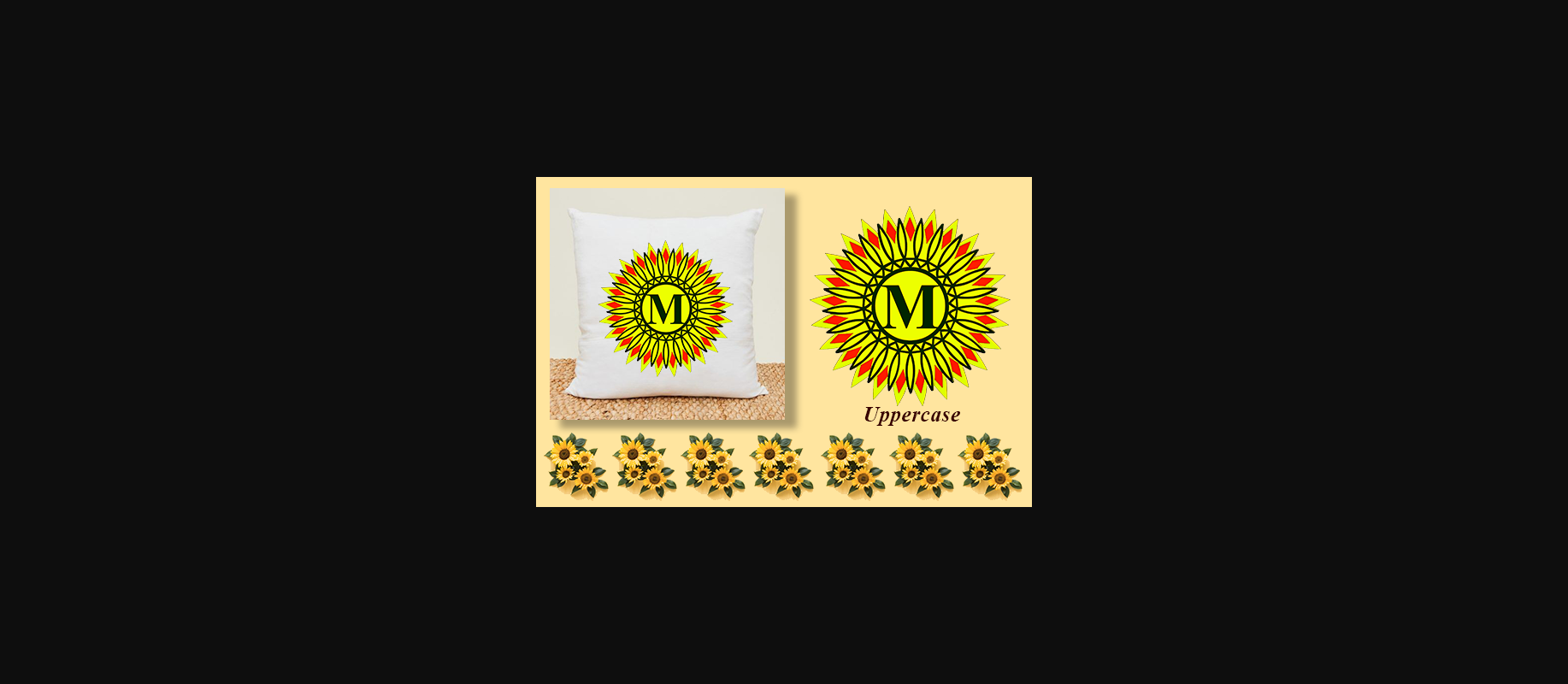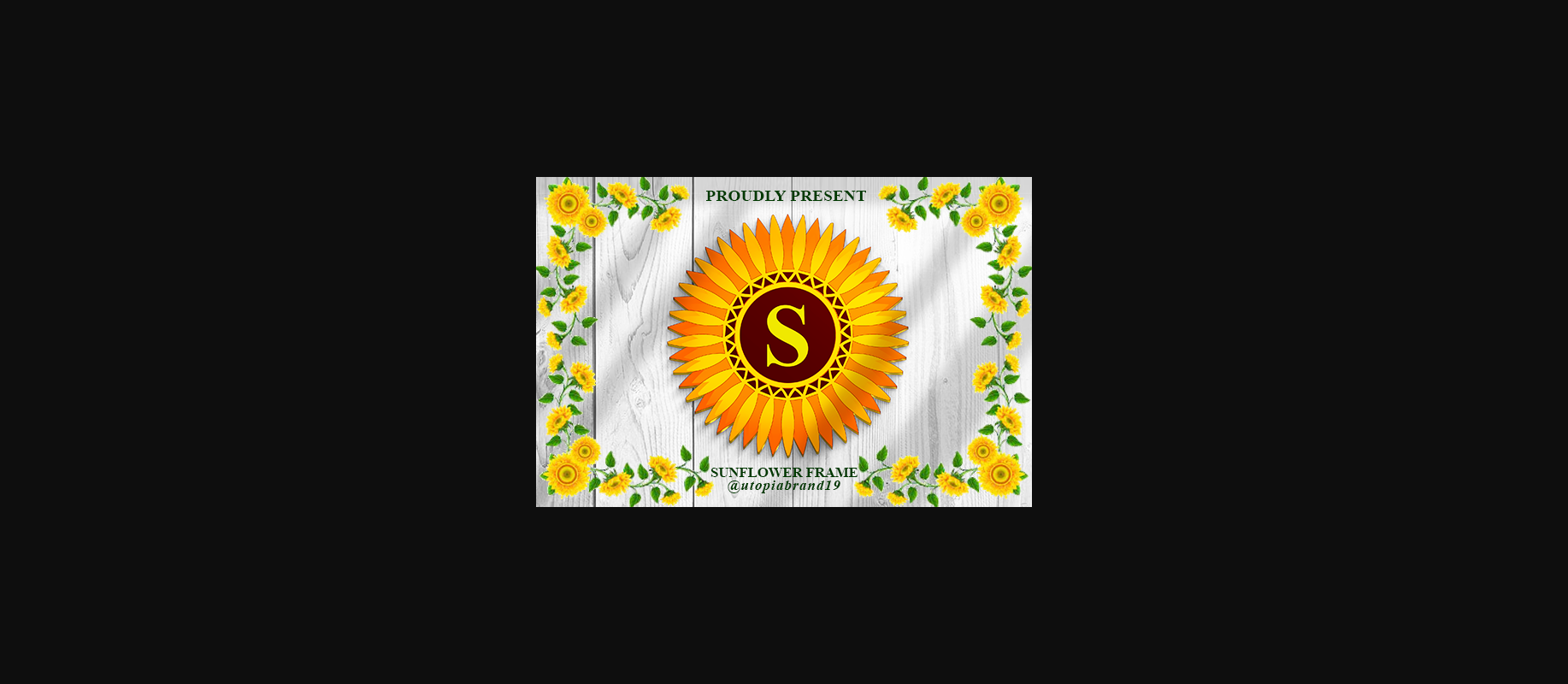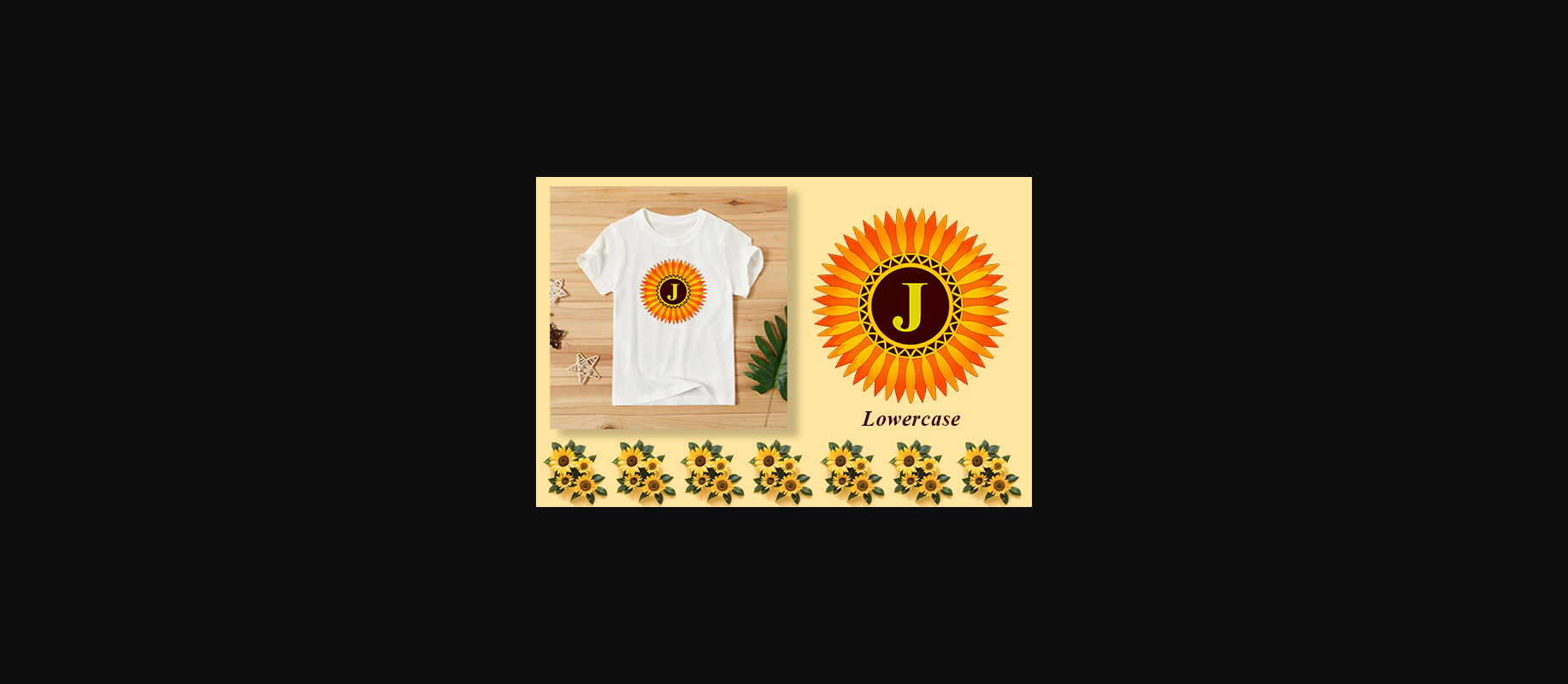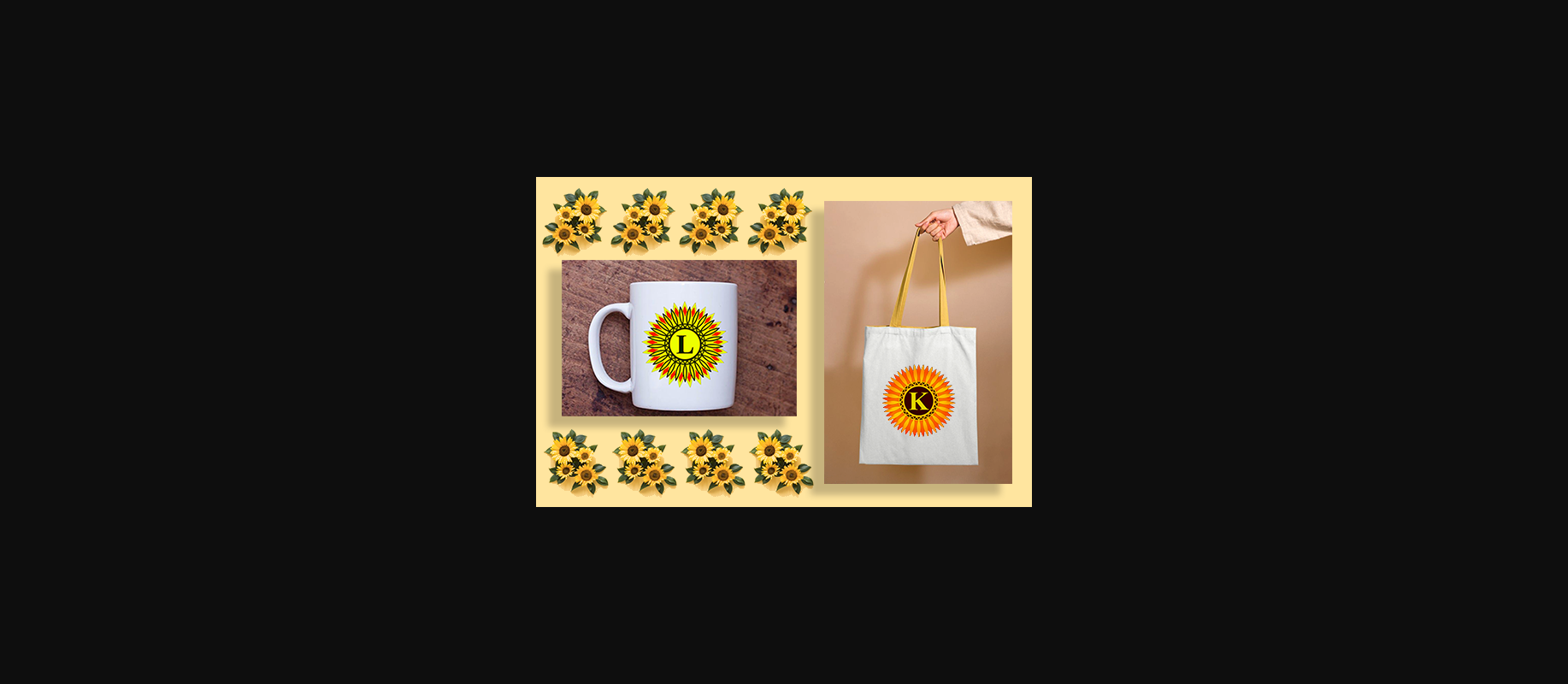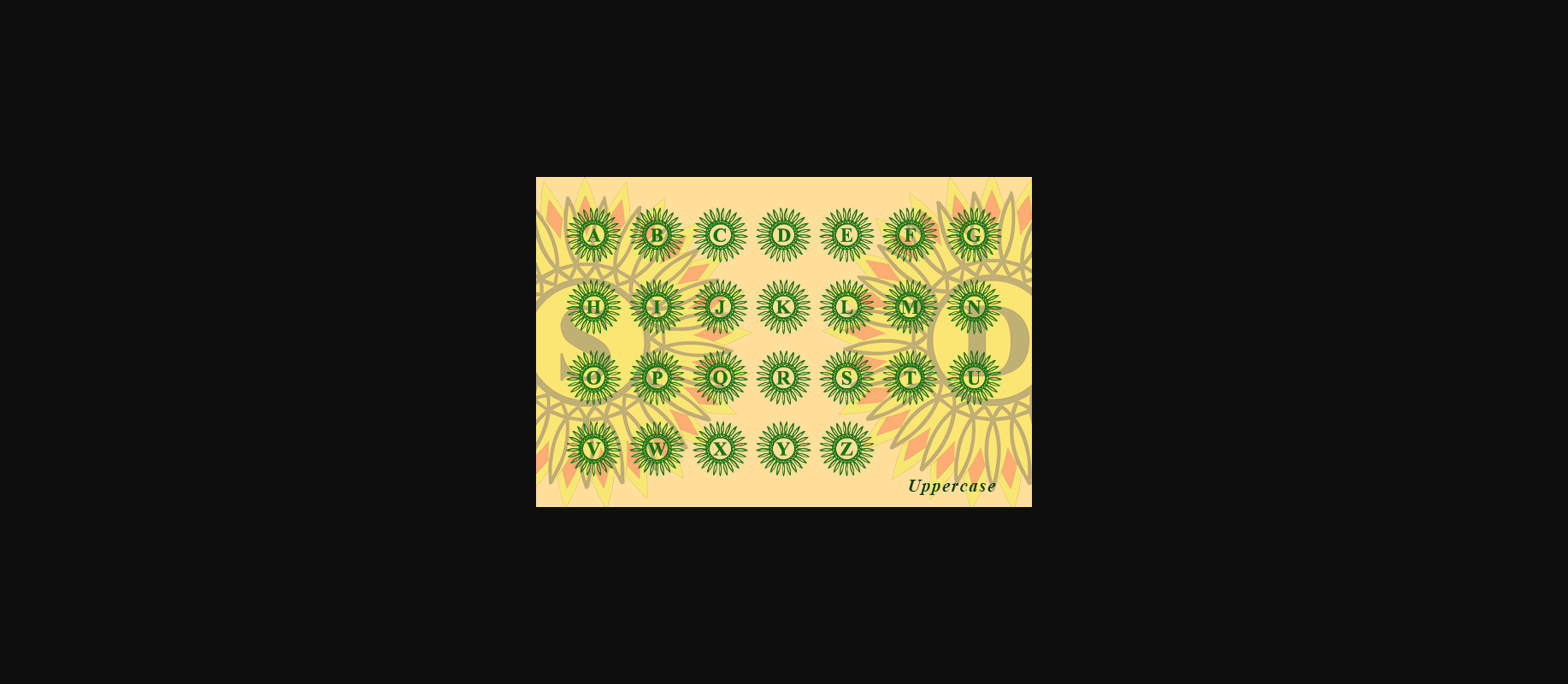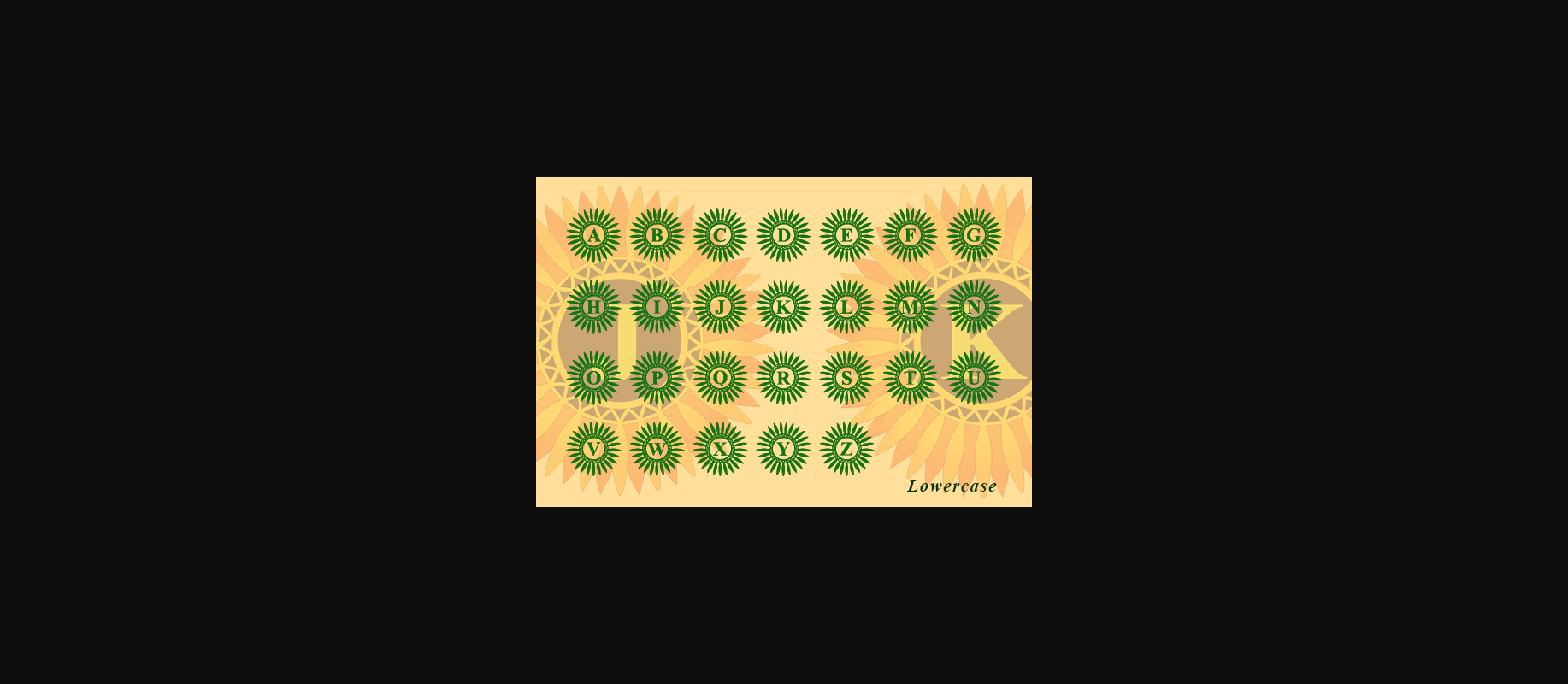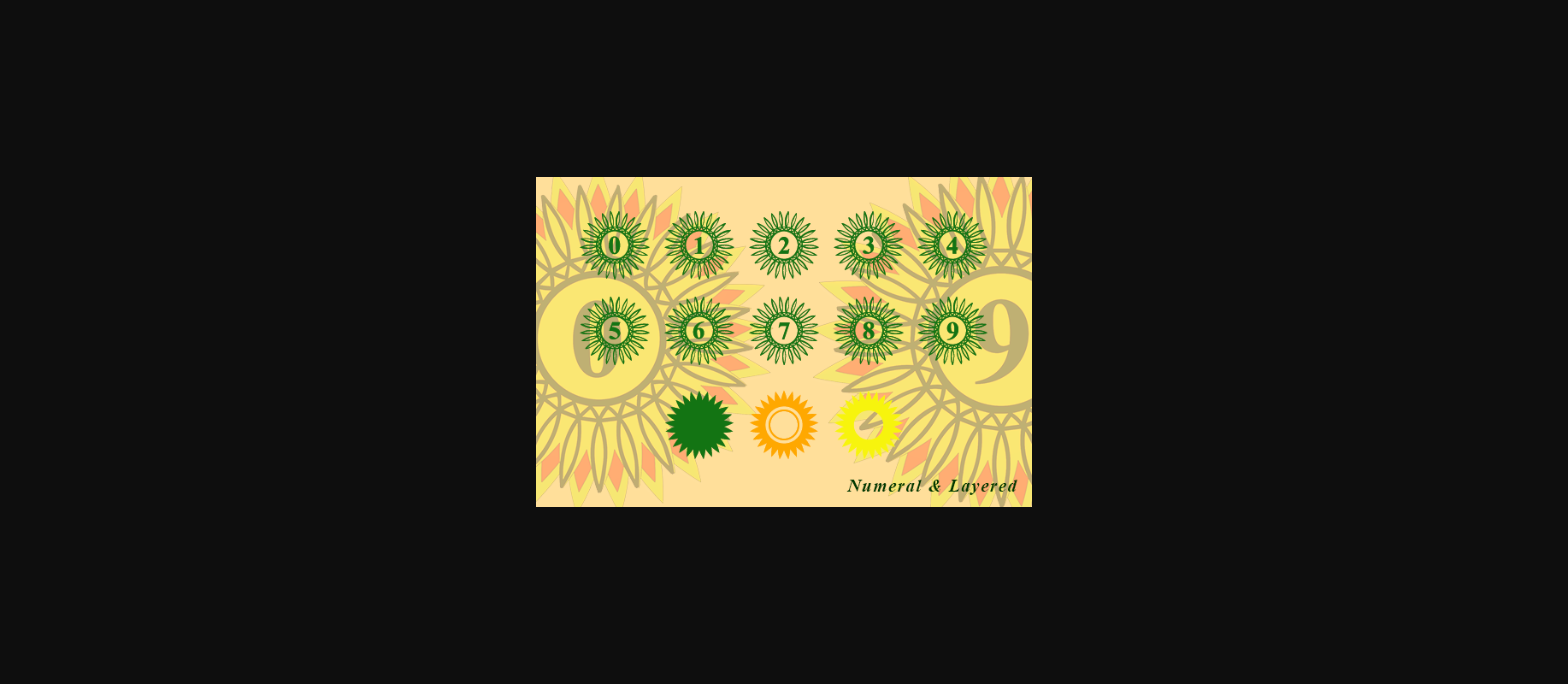
Sunflower Frame Monogram Font
About Sunflower Frame Monogram Font
Sunflower Frame Monogram is a charming decorative font. Fall for its ravishing style and use it to create gorgeous wedding invitations, beautiful stationary art, eye-catching social media posts, and much more!